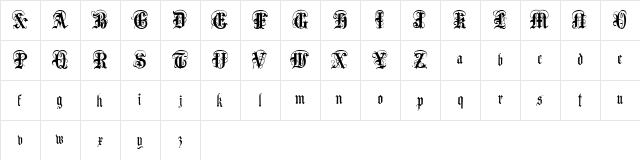
Anglo Text Regular Free Font
Anglo Text Regular
Design Context for Anglo Text
Anglo Text is a composed and adaptable typeface that performs quietly and consistently across a wide range of design contexts.